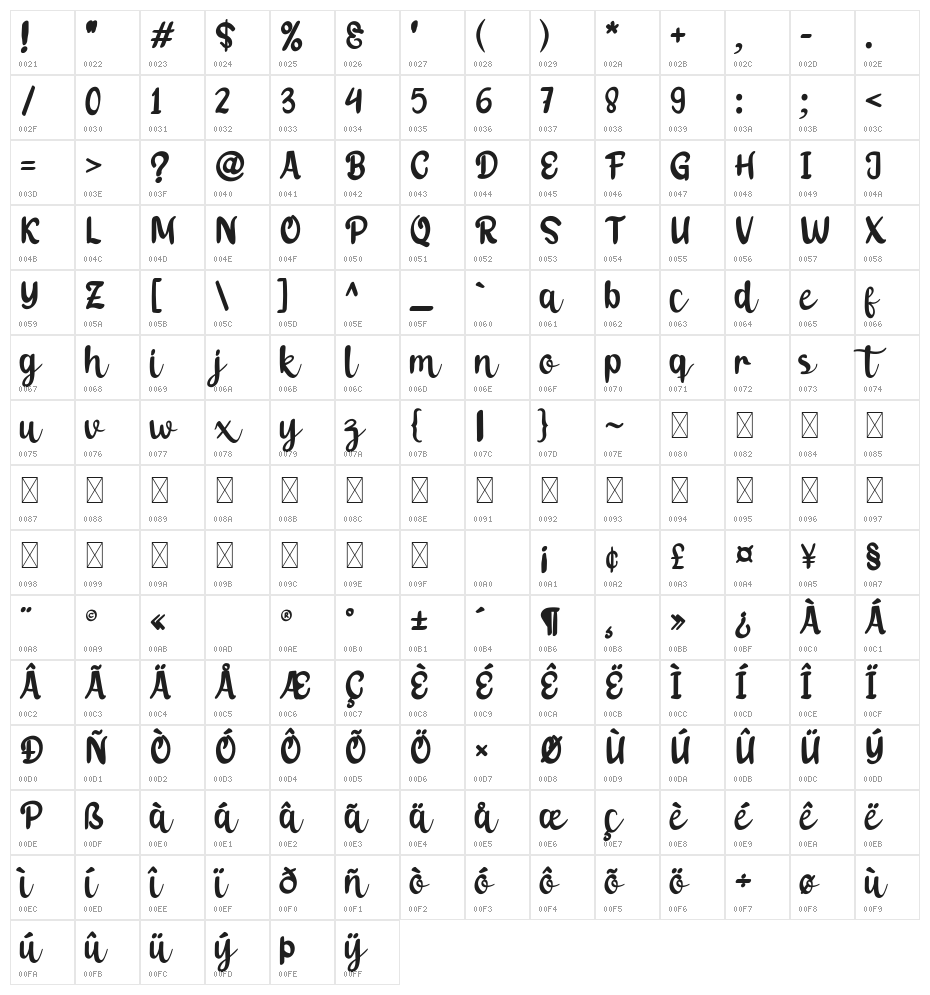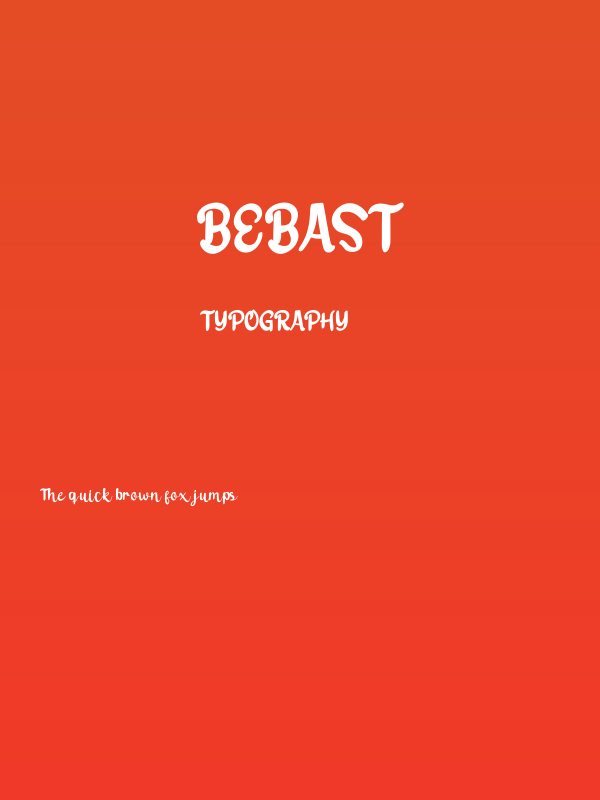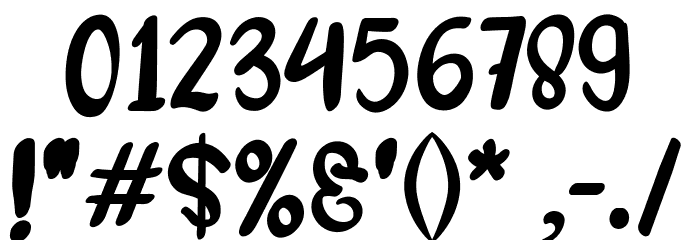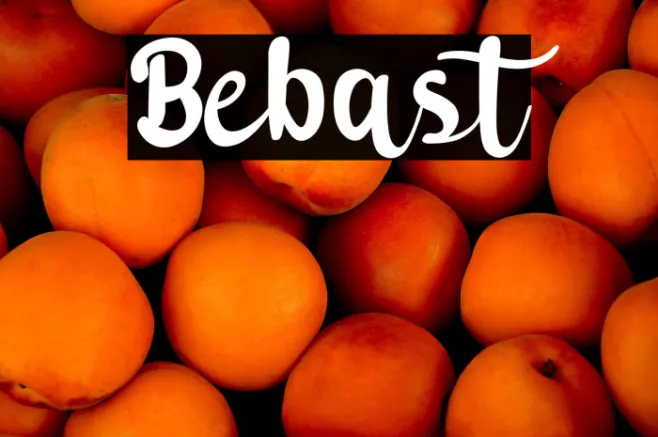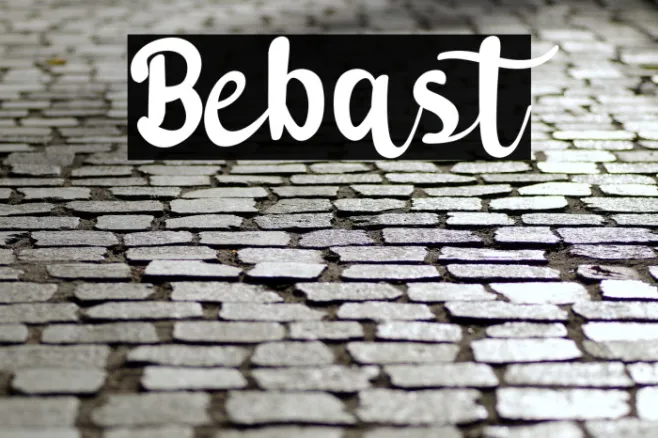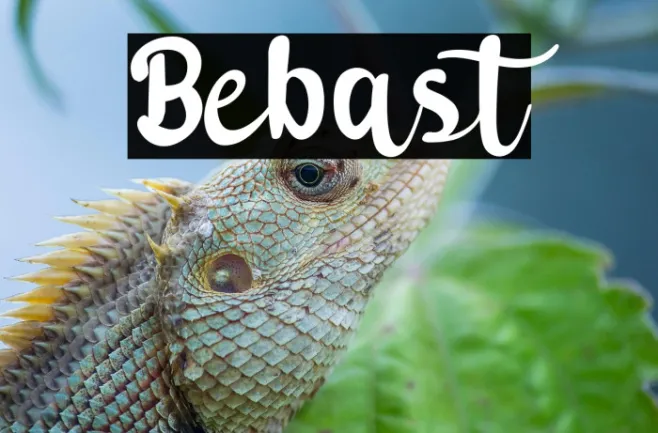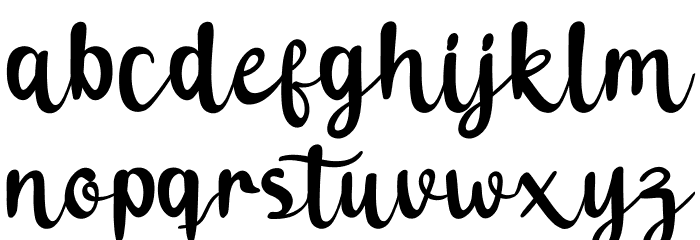
Bebast Font
Bebast Description
This font features a bold and playful script style with a handwritten appearance. The characters are rounded and connected, giving it a fluid and dynamic look. The uppercase letters are slightly more structured, while the lowercase letters exhibit a more casual and flowing form. The numerals and special characters maintain the same playful and bold style, making them stand out. This font is ideal for projects that require a personal touch or a sense of fun and creativity.
| Overall Style | Playful, Handwritten |
| Proposed Projects | Great for greeting cards, invitations, logos, and playful branding. |